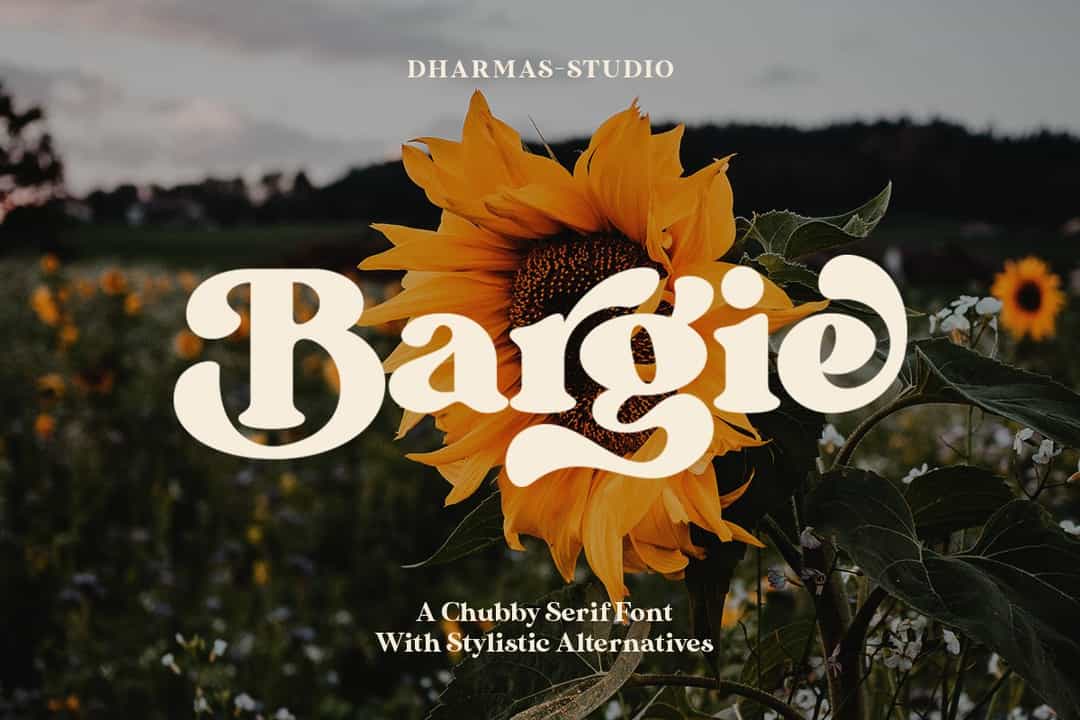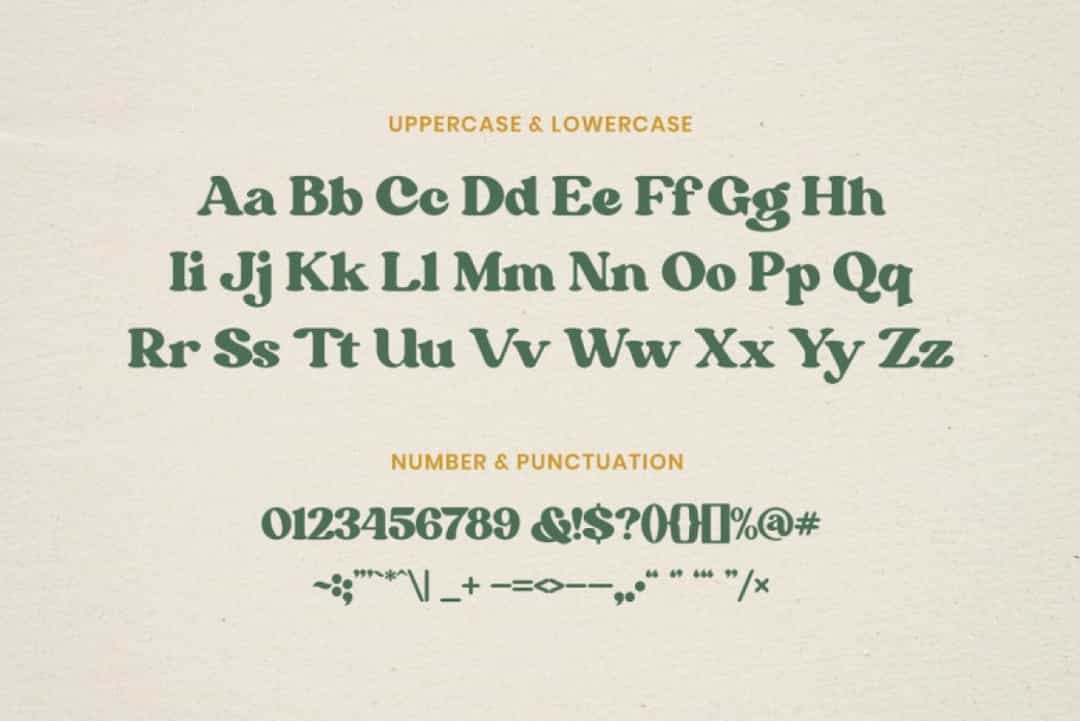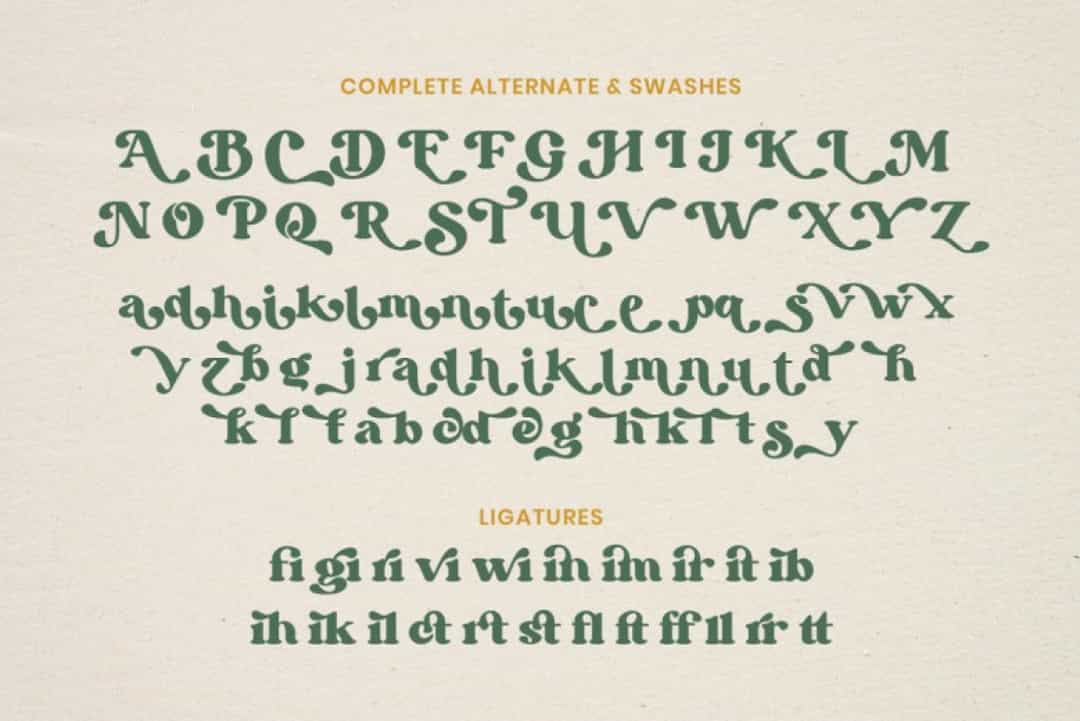
Bargie is my playful new serif font which brings 70’s flair into any of your projects. Perfect for branding, logotypes, monograms and wedding invitations as well as blog headlines or headlines for blog posts; Bargie adds warmth and comfort with every stroke.